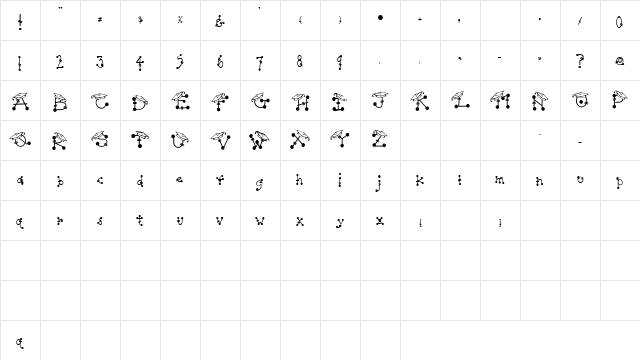
DJ Graduation Regular
Design Context for DJ Graduation
DJ Graduation is a composed and adaptable typeface that performs quietly and consistently across a wide range of design contexts.